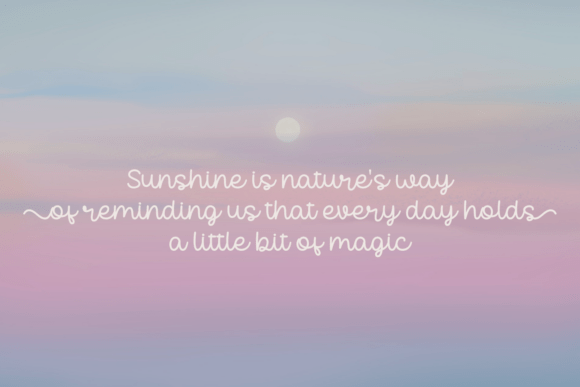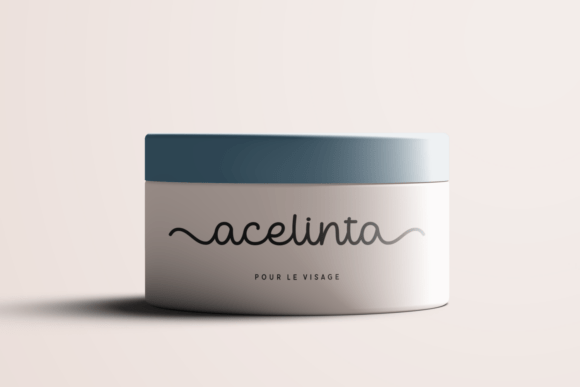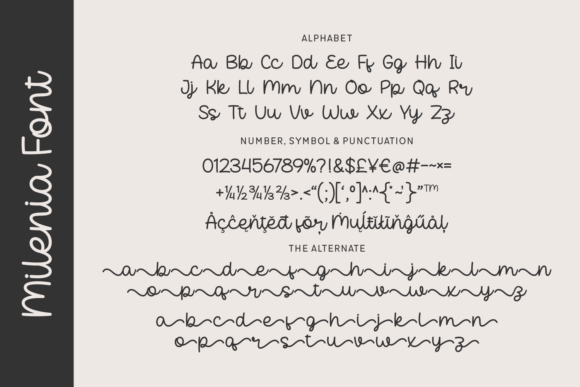
Milenia Font
Milenia is a delicate monoline script font featuring minimal yet expressive curves and lovely heart dots. Its simplicity makes it a go-to for journaling, stationery, social media, and minimalist logos.